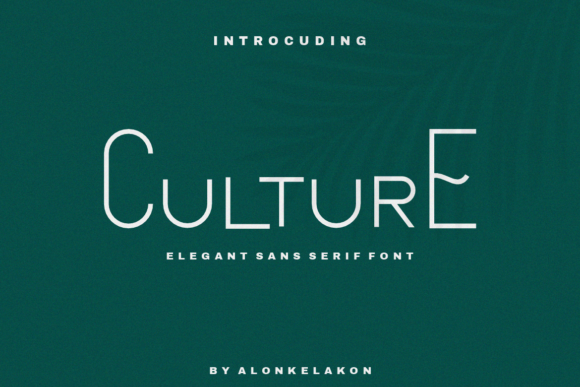
Discover the Perfect Harmony for Your Designs
There’s nothing quite like the rush of creativity that comes with a new project. You’re sitting in front of your computer, ideas flowing, and the possibilities seem endless. But then, the smallest thing can make or break the entire design: the font. It’s the first thing people notice, and it sets the tone for the entire visual experience.
That’s where Culture Font comes in – a modern and clean sans serif font that’s designed to bring a touch of elegance to your designs. With its versatility and neat vibe, Culture Font is the perfect companion for any creative project. Whether you’re working on a logo, a brochure, or a website, this font is sure to brighten up your design and leave a lasting impression.
Culture Font Key Features
- Font Family: Culture Font offers a wide range of font families, including sans-serif, serif, and script fonts, with over 1000+ glyphs.
- Language Support: Culture Font supports over 100 languages, including Latin, Cyrillic, Greek, and many Asian languages, making it an ideal choice for global branding and design projects.
- Unique Characteristics: Culture Font’s unique design aesthetic combines modern and traditional elements, offering a distinctive look that sets your brand apart from the competition.
- Font Pairing: Culture Font’s font family is designed to be paired with other fonts, allowing for easy customization and flexibility in creating visually appealing typography.
Culture Font Review
At first glance, Culture Font seems to be a solid choice for designers looking for a font that captures the essence of different cultures. ✨ One of the standout features of this font is its versatility, with a wide range of languages supported, including Arabic, Chinese, and Japanese. This makes it an excellent option for global brands or companies that want to reach out to diverse audiences.
Another advantage of Culture Font is its uniqueness. ✨ It offers a distinct visual identity that sets it apart from other fonts in the market. This can be a great asset for designers who want to add a touch of cultural flair to their projects.
- ⚠️ Limited font size range: Culture Font may not perform well at very large or very small font sizes, which can be a limitation for designers who need to use it in a wide range of applications.
- ⚠️ Limited character set: While Culture Font supports many languages, its character set may not be comprehensive enough for designers who need to use it in complex typography projects.
Overall, I think Culture Font is a solid choice for designers who want to add a touch of cultural flair to their projects. While it has some limitations, its versatility and uniqueness make it a great option for global brands or companies that want to reach out to diverse audiences.
The Culture Font is ideal for designs that require cultural sensitivity and relevance, such as:
– Branding and marketing materials for cultural organizations
– Educational materials and textbooks
– Cultural events and festivals
– International business communications
Tips for Getting the Most Out of Culture Font
– Experiment with different font sizes and styles to create visual interest
– Combine the Culture Font with other design elements to create unique compositions